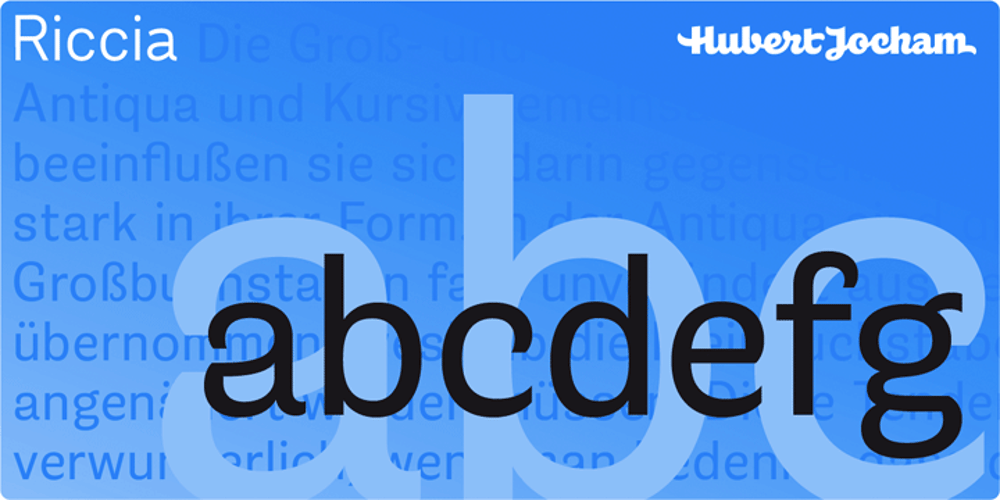
Riccia Font Family was designed by Hubert Jocham and published by Hubert Jocham Type. Riccia contains 18 styles and family package options. Riccia actually started with the idea of a Rotunda a. Specifically the lower part of it. This element has a lot of character and I wanted to transfer it to a modern sans serif. The curly endings made it possible to spread that idea to the entire alphabet. Apart from those strong elements the proportions are inspired by classic grotesques. The weights are layed out in the usual way I create my families. 9 weights up to a strong Ultrabold, all with italics. Ideal for magazine and corporate usage.